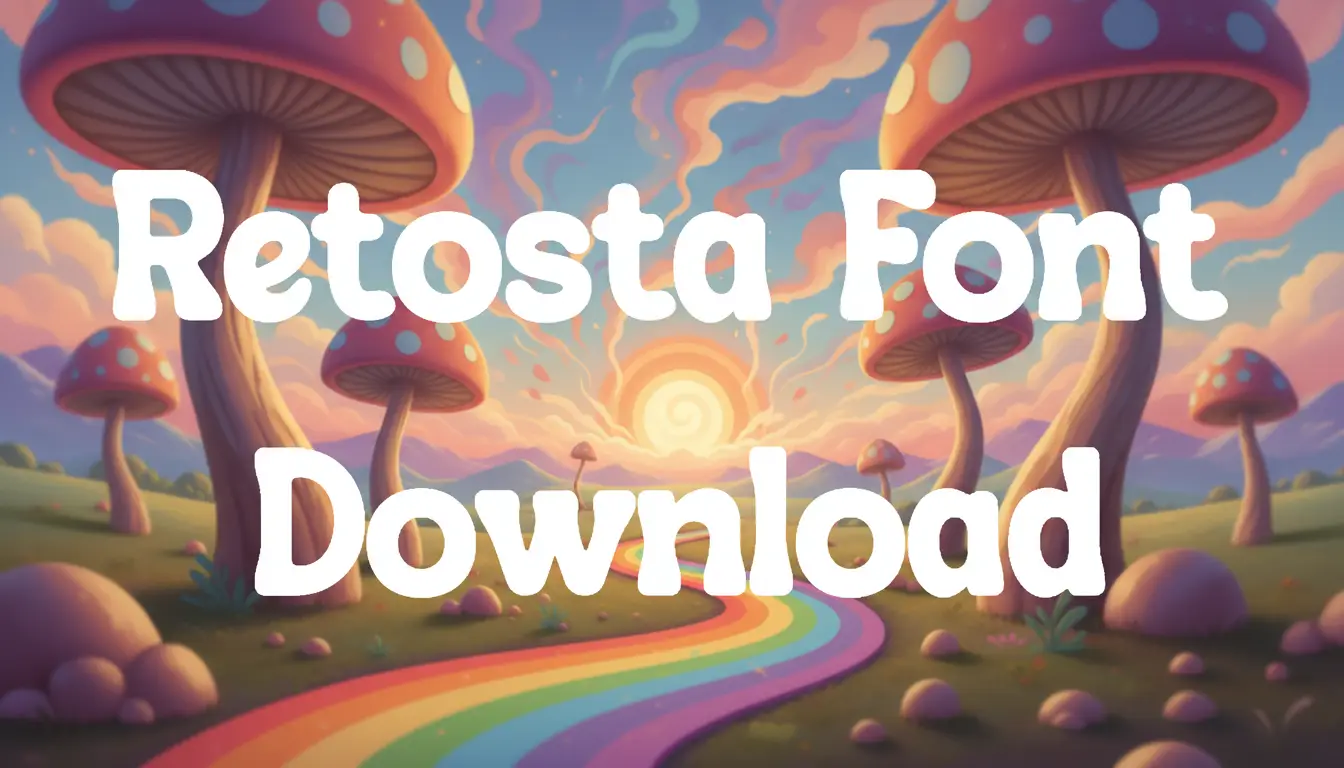
Retosta Font
Retosta
Retosta is a fancy font created by Heru Utama Putra and released through Storytype Studio. It's a decorative display font with plenty of personality, made to grab attention. It's a free download, and you can try it with your own text in the preview above first.
You get every letter from A to Z in both cases and all the numbers from 0 to 9, which means Retosta can handle full sentences, dates and prices. Everyday marks like &, !, ? and @ are there too. Thanks to its accented letters, it also works for Spanish, French, German, Portuguese and Italian, not just English.
Think of Retosta for posters, logos and eye-catching headlines. Use it for one standout word or headline and let simpler fonts handle the rest.
Yes. Retosta includes the accented letters needed for Spanish, French, German, Portuguese and Italian, so it works for more than just English.